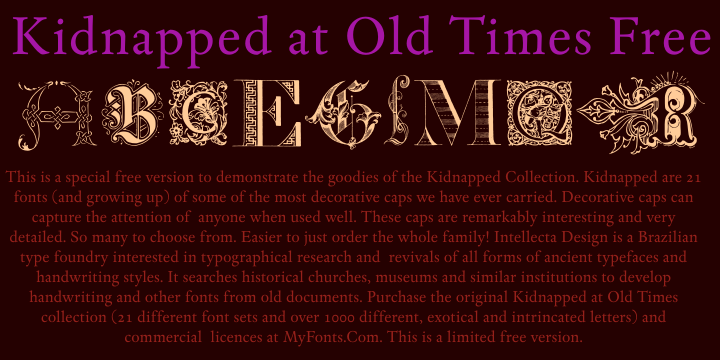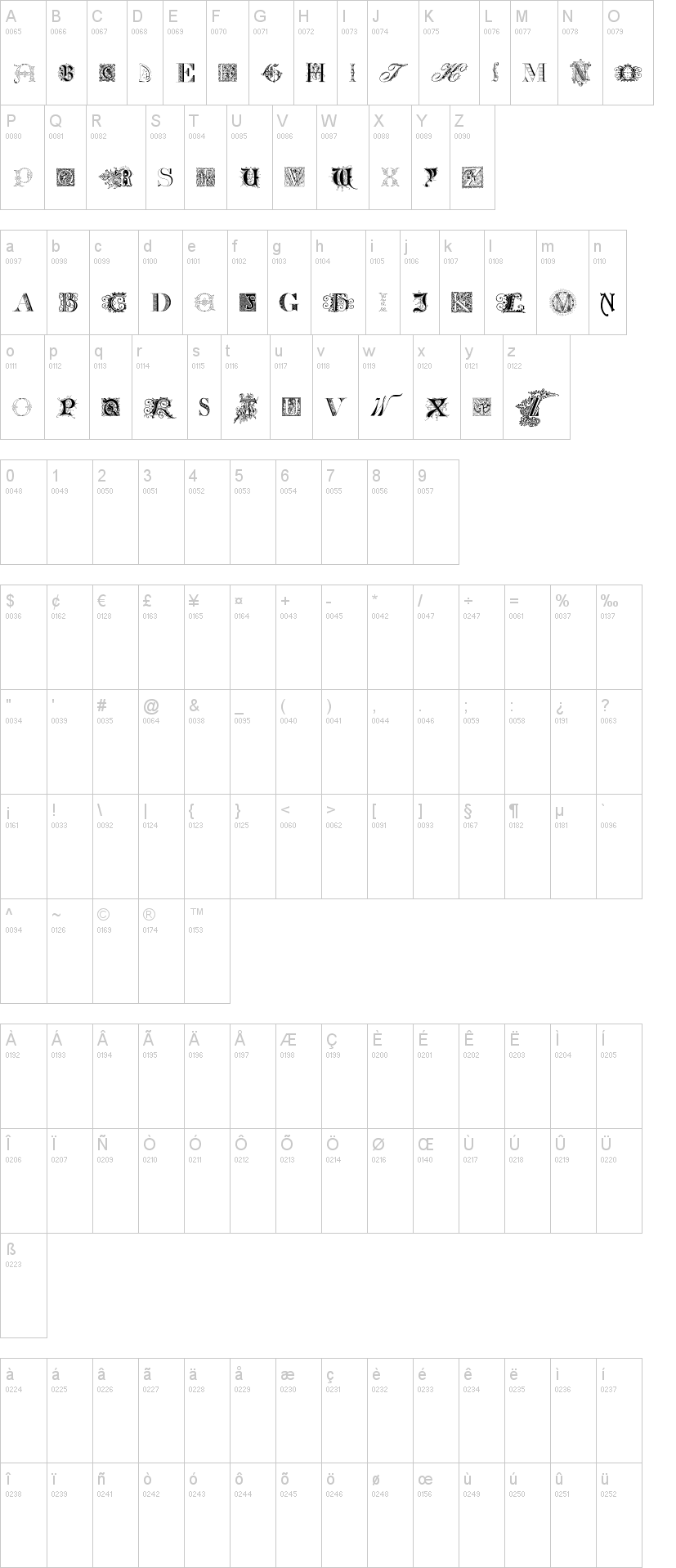
This is a special free version to demonstrate the goodies of the Kidnapped Collection. Kidnapped are 21 fonts (and growing up) of some of the most decorative caps we have ever carried. Decorative caps can capture the attention of anyone when used well. These caps are remarkably interesting and very detailed. So many to choose from. Easier to just order the whole family! Intellecta Design is a Brazilian type foundry interested in typographical research and revivals of all forms of ancient typefaces and handwriting styles. It searches historical churches, museums and similar institutions to develop handwriting and other fonts from old documents.